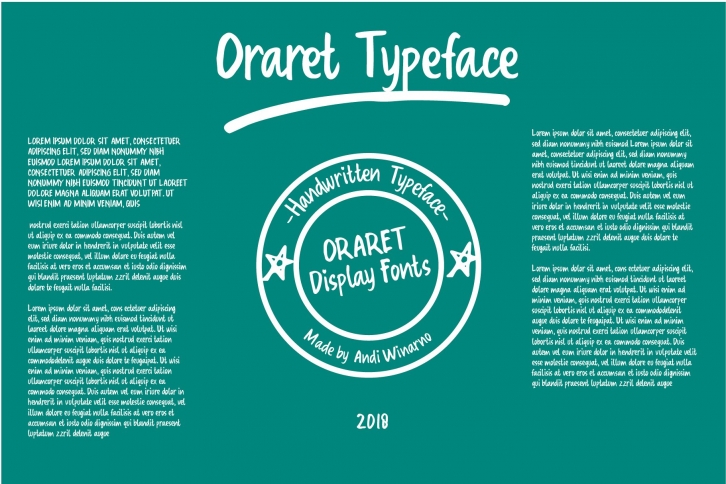
Oraret is a handwritten font look, it gives you manual handrwitting style on your design project. Available on OTF and TTF format also added by special Glyphs inside